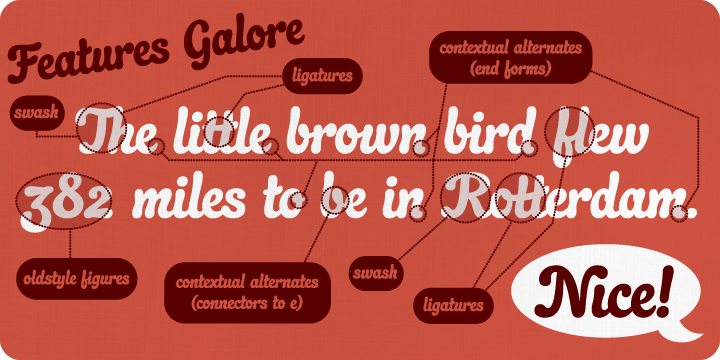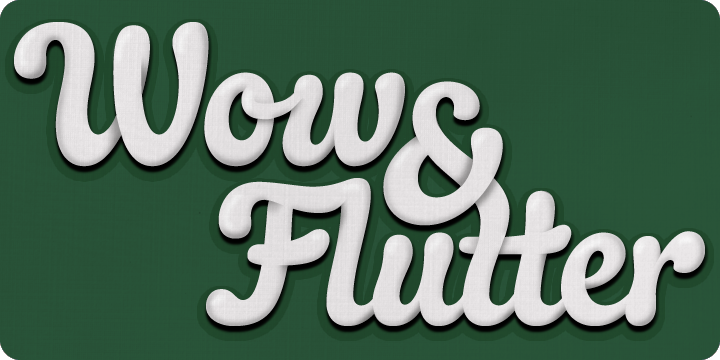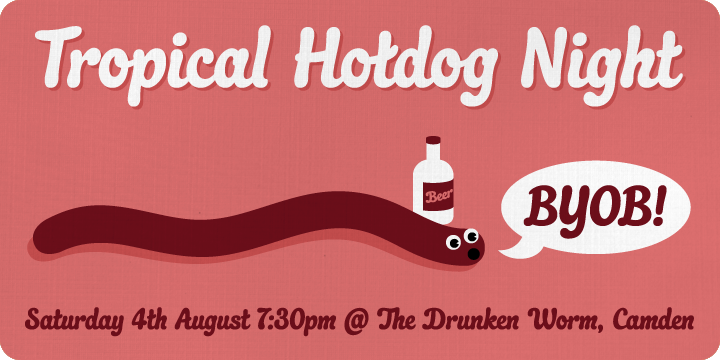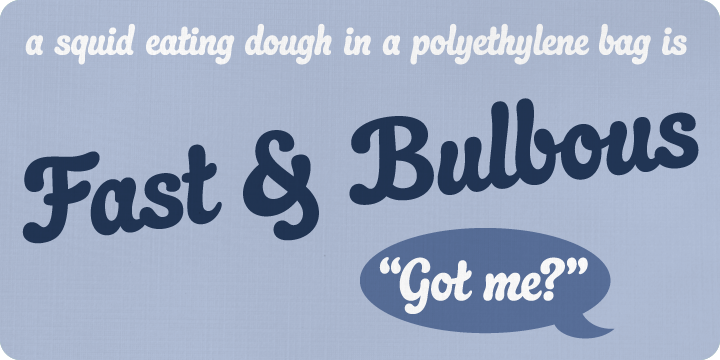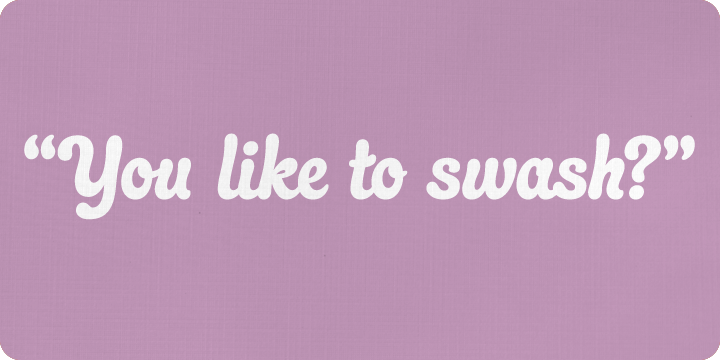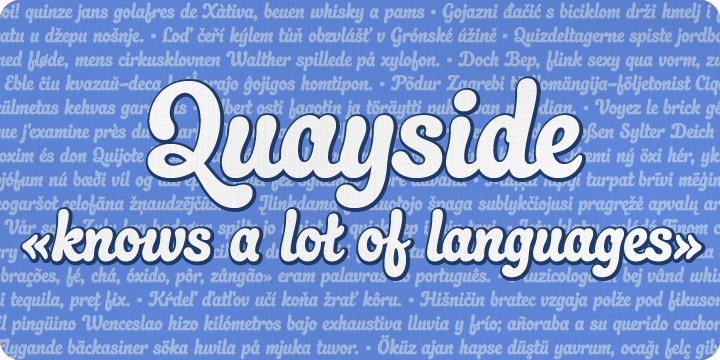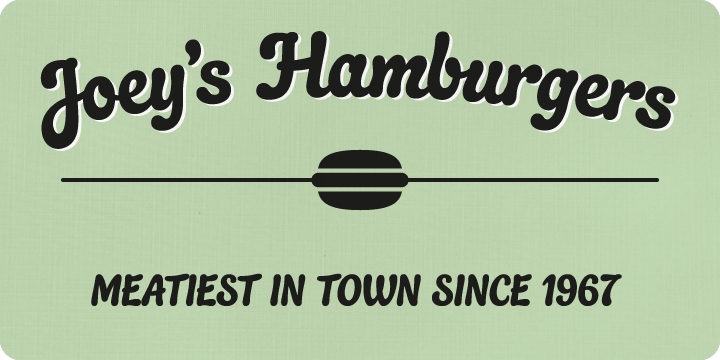
Quayside is a brush script font published by Schizotype Fonts.
Quayside is a deliciously thick and bulbous baseball script, with a wealth of OpenType features.
Features include:
Contextual alternates - I would suggest having these on by default; they make letters connect more smoothly (uppercase letters like M and H, which are normally non-connecting for all-caps purposes, connect to lowercase letters. The swash variant of J, and all o and b characters connect to any e character at a lower junction for a smoother join). Contextual alternates also make sure special end-forms of lowercase letters are used at the ends of words.
Ligatures - A nice collection of useful ligatures which make the text flow smoother.
Swash - Gives you more exuberant capitals. Not recommended for all-caps usage! The swash function also gives a variation of the ampersand and turns # into a nice numero symbol.
Oldstyle Figures - lining figures are default but with the flick of a switch in OpenType savvy applications, you get expressive oldstyle figures.